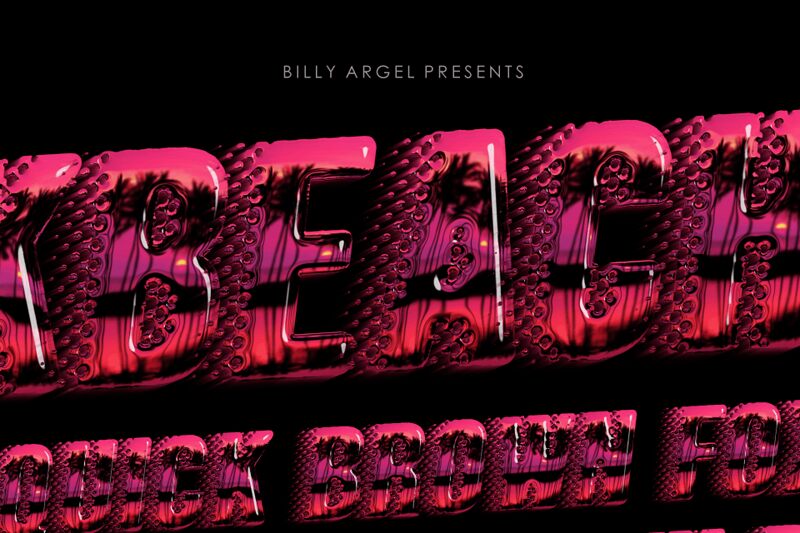
PINKBEACHITALICPERSONALUSE-It
Pinkbeach Italic font by Billy Argel Fonts is a decorative display font with a condensed width and bold weight. Its textured and retro appearance gives it an intriguing feel with creative, youthful letters inside. With capitalized characters and sharp subtle edges, the font asserts dominance over the viewer with its impactful presence.
Text using this free display font will look vibrant, energetic, and dynamic whether you apply it to packaging design, movies covers, or singing shows’ posters. Use it for album titles of a CD cover for music albums from the 50s or 60s that contain retro songs.